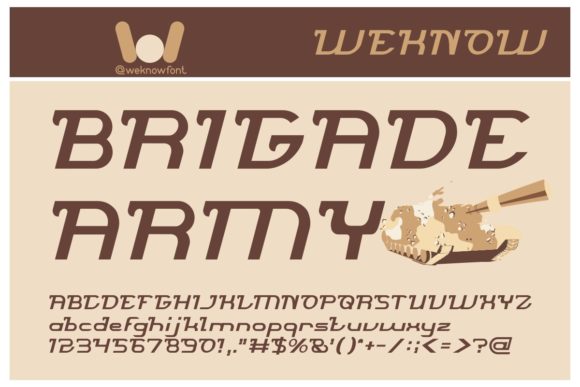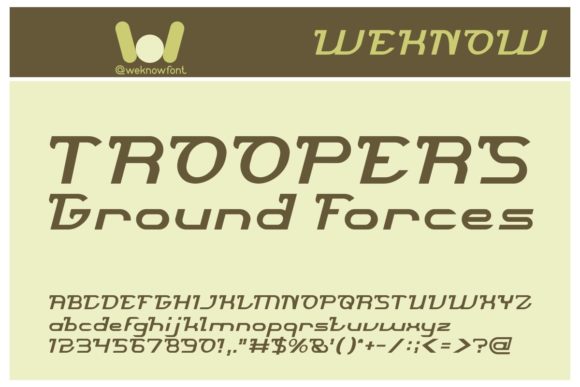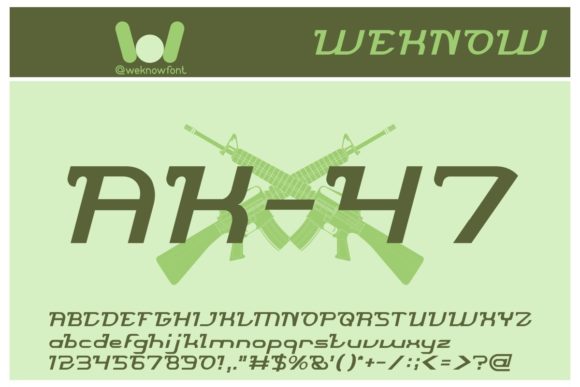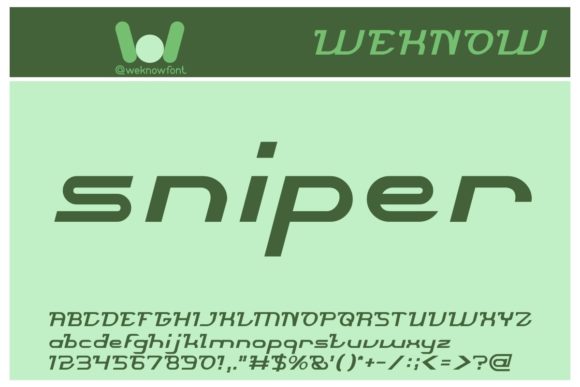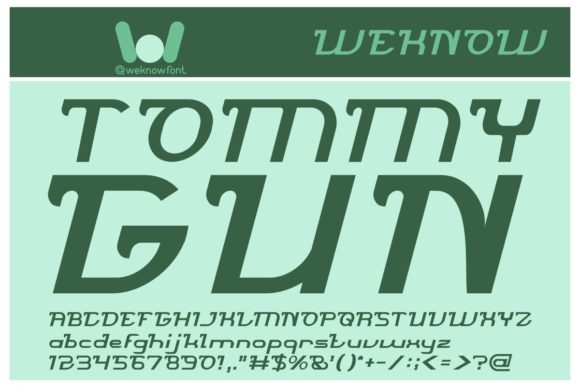
Introducing Brigade Army Font: The Ultimate Display Font for Modern Designs
Are you a designer or crafter looking for a bold and techno-looking display font to elevate your creative projects? Look no further than Brigade Army Font! This versatile font is perfect for a wide range of applications, from logos and wedding invitations to headings, t-shirts, letterhead, signage, labels, news, posters, badges, and more.
What is Brigade Army Font?
Brigade Army Font is a carefully crafted display font that exudes a sense of modernity and edginess. Its bold and techno-inspired design makes it perfect for projects that require a strong visual statement. Whether you’re designing a logo, creating a poster, or crafting a wedding invitation, Brigade Army Font is sure to make a lasting impression.
Key Features of Brigade Army Font
- Bold and Techno-Looking Design: Brigade Army Font boasts a bold and futuristic design that’s perfect for modern designs.
- Versatile: This font can be used for a wide range of applications, from logos and headings to t-shirts and signage.
- Easy to Read: Despite its bold design, Brigade Army Font is easy to read, making it perfect for both digital and print applications.
- High-Quality: Brigade Army Font is a high-quality font that’s designed to deliver exceptional results.
Use Cases for Brigade Army Font
Brigade Army Font is an incredibly versatile font that can be used for a wide range of projects, including:
- Logos: Create a bold and memorable logo for your brand or business.
- Wedding Invitations: Add a touch of modernity and sophistication to your wedding invitations.
- Headings: Use Brigade Army Font to create eye-catching headings for your website, blog, or social media posts.
- T-Shirts: Design bold and stylish t-shirts that are sure to turn heads.
- Letterhead: Create professional-looking letterhead for your business or organization.
- Signage: Use Brigade Army Font to create eye-catching signage for your business or event.
- Labels: Design bold and stylish labels for your products or packaging.
- News: Use Brigade Army Font to create bold and attention-grabbing headlines for your news articles.
- Posters: Create eye-catching posters that are sure to grab attention.
- Badges: Design bold and stylish badges for your employees, volunteers, or event attendees.
Why Choose Brigade Army Font?
So why choose Brigade Army Font over other display fonts? Here are just a few reasons:
- Unique Design: Brigade Army Font boasts a unique and modern design that’s sure to stand out.
- High-Quality: This font is designed to deliver exceptional results, whether you’re using it for digital or print applications.
- Versatile: Brigade Army Font can be used for a wide range of projects, making it a great addition to any designer’s toolkit.
In conclusion, Brigade Army Font is a bold and techno-looking display font that’s perfect for modern designs. Its versatility, high-quality design, and ease of use make it a great choice for designers and crafters looking to elevate their creative projects. Whether you’re designing a logo, creating a poster, or crafting a wedding invitation, Brigade Army Font is sure to make a lasting impression.